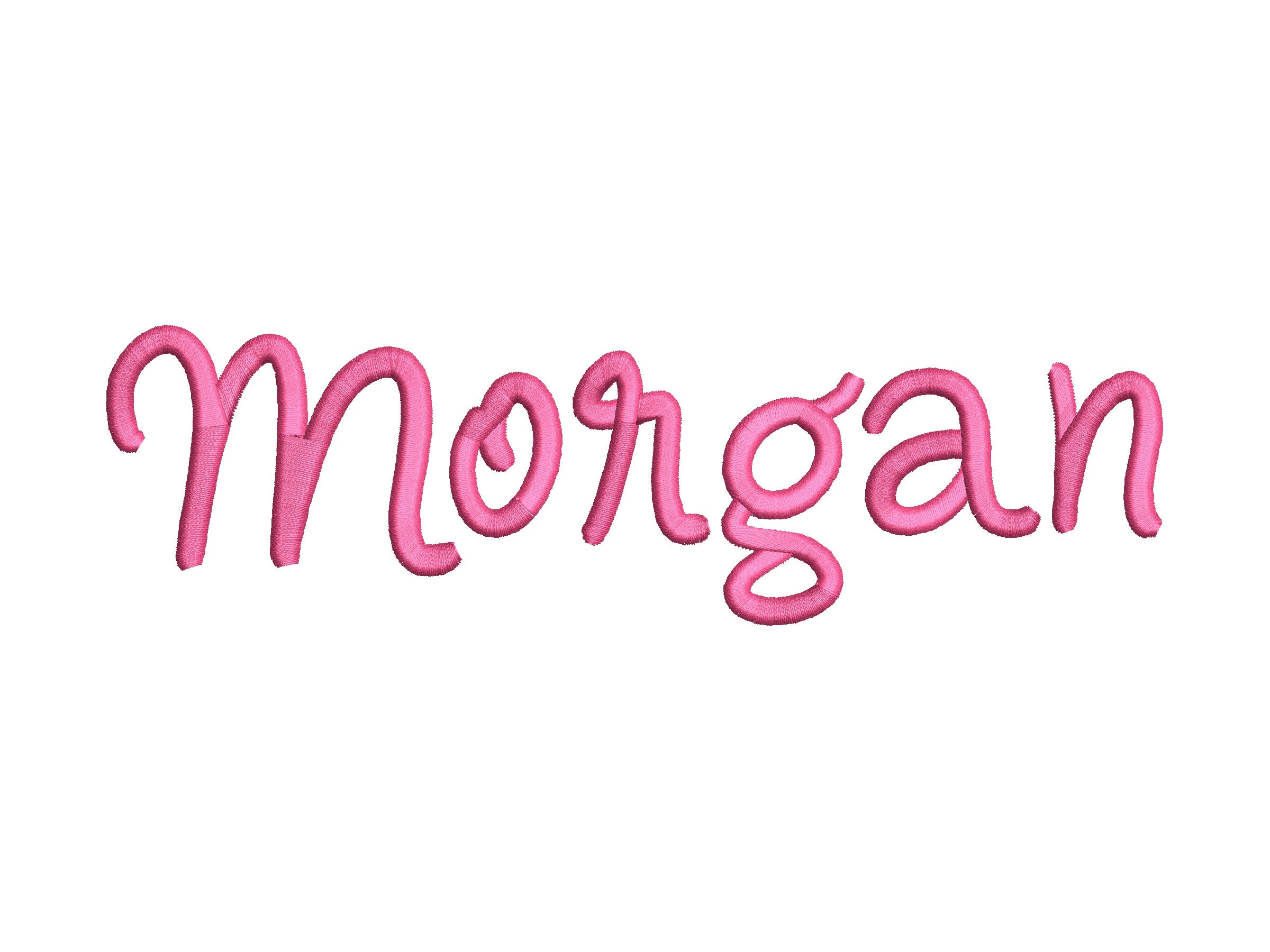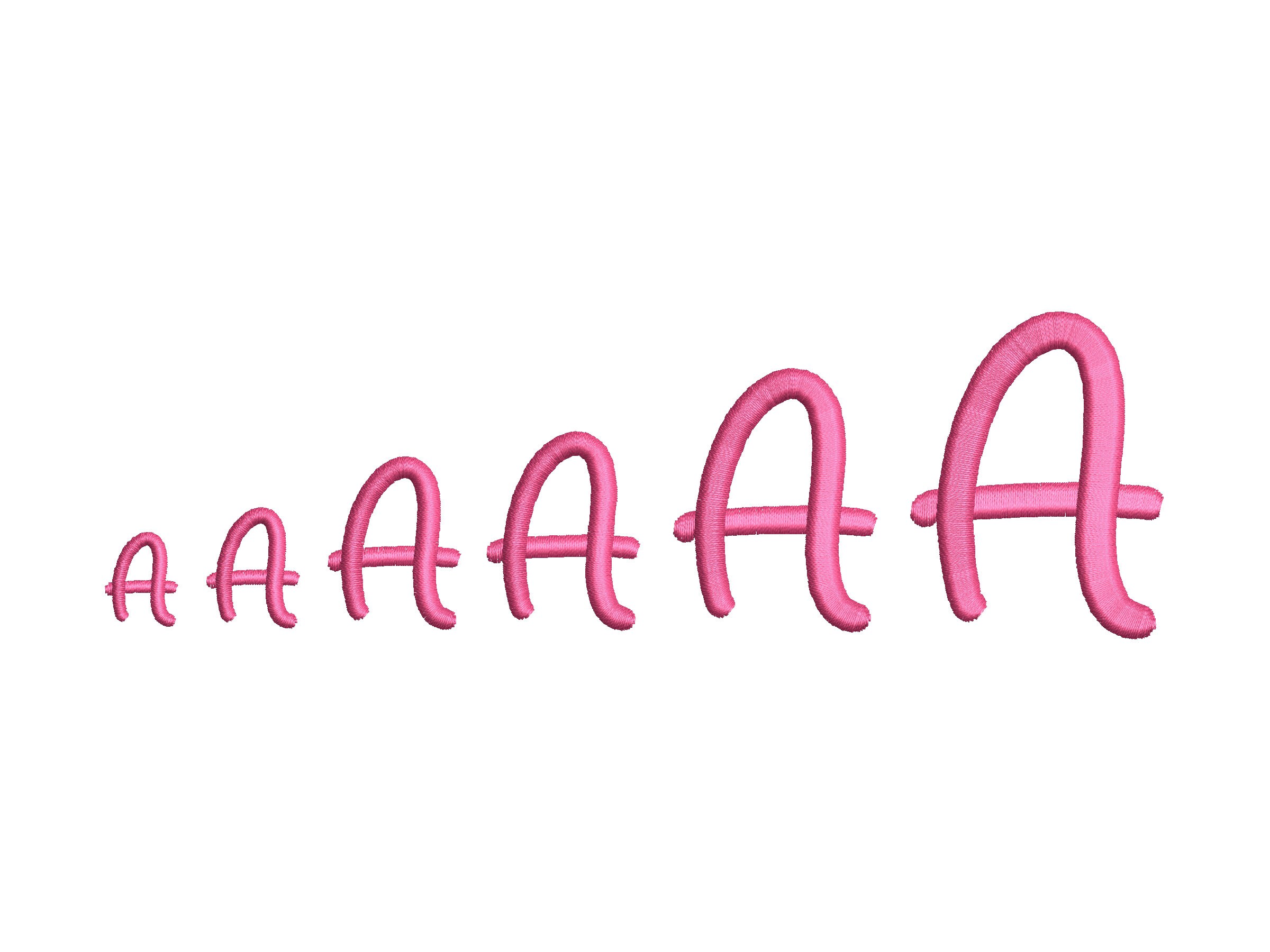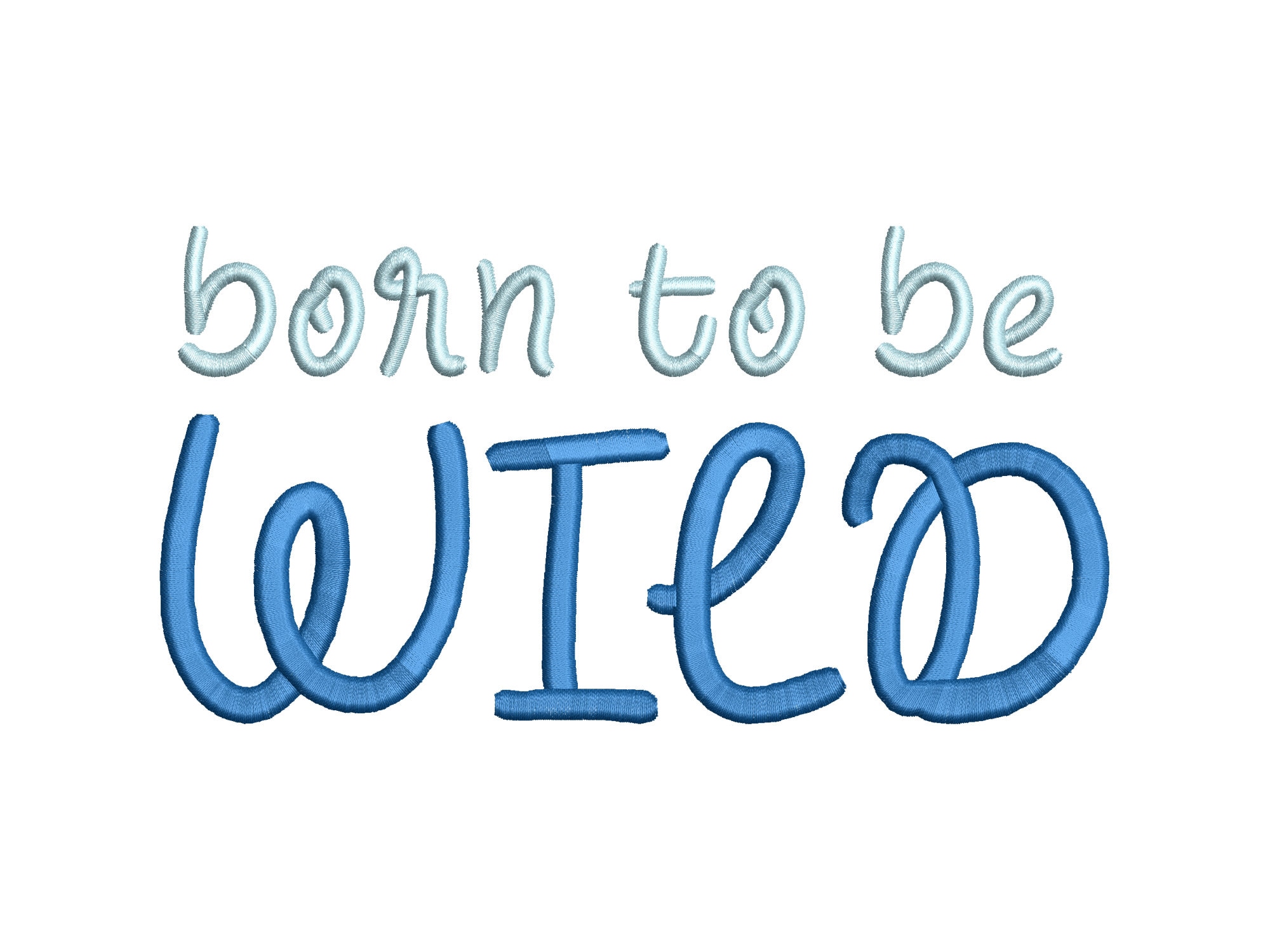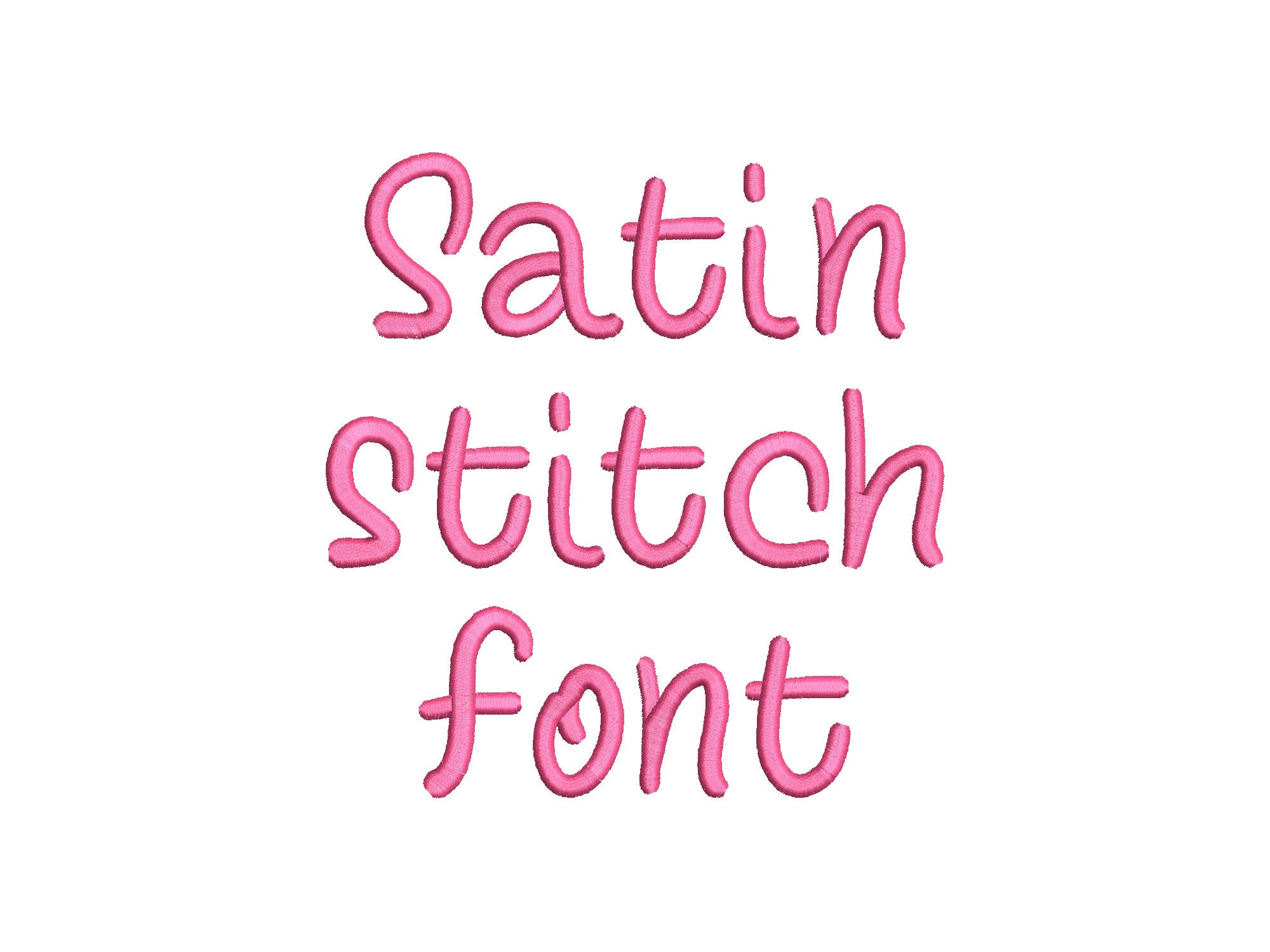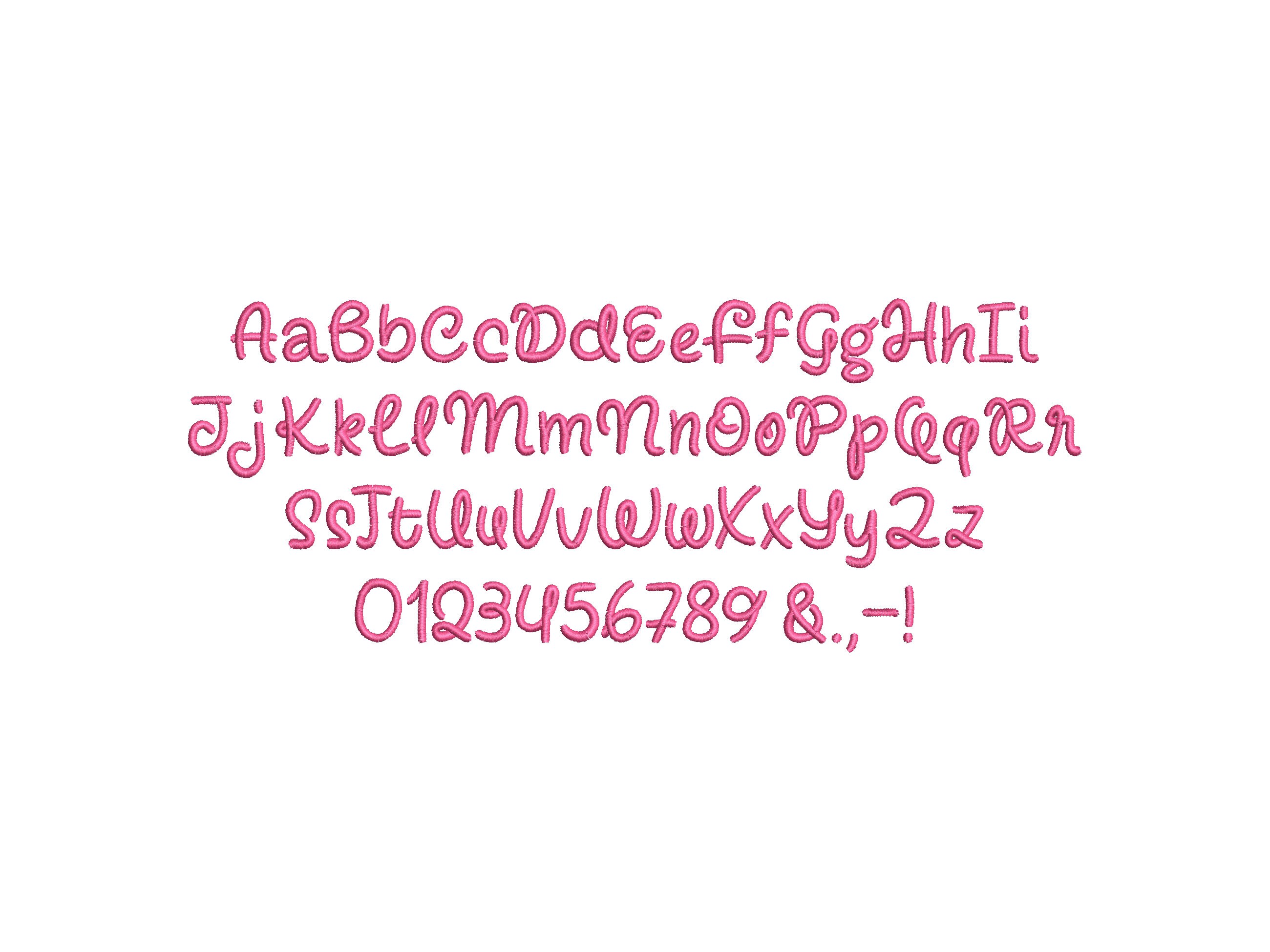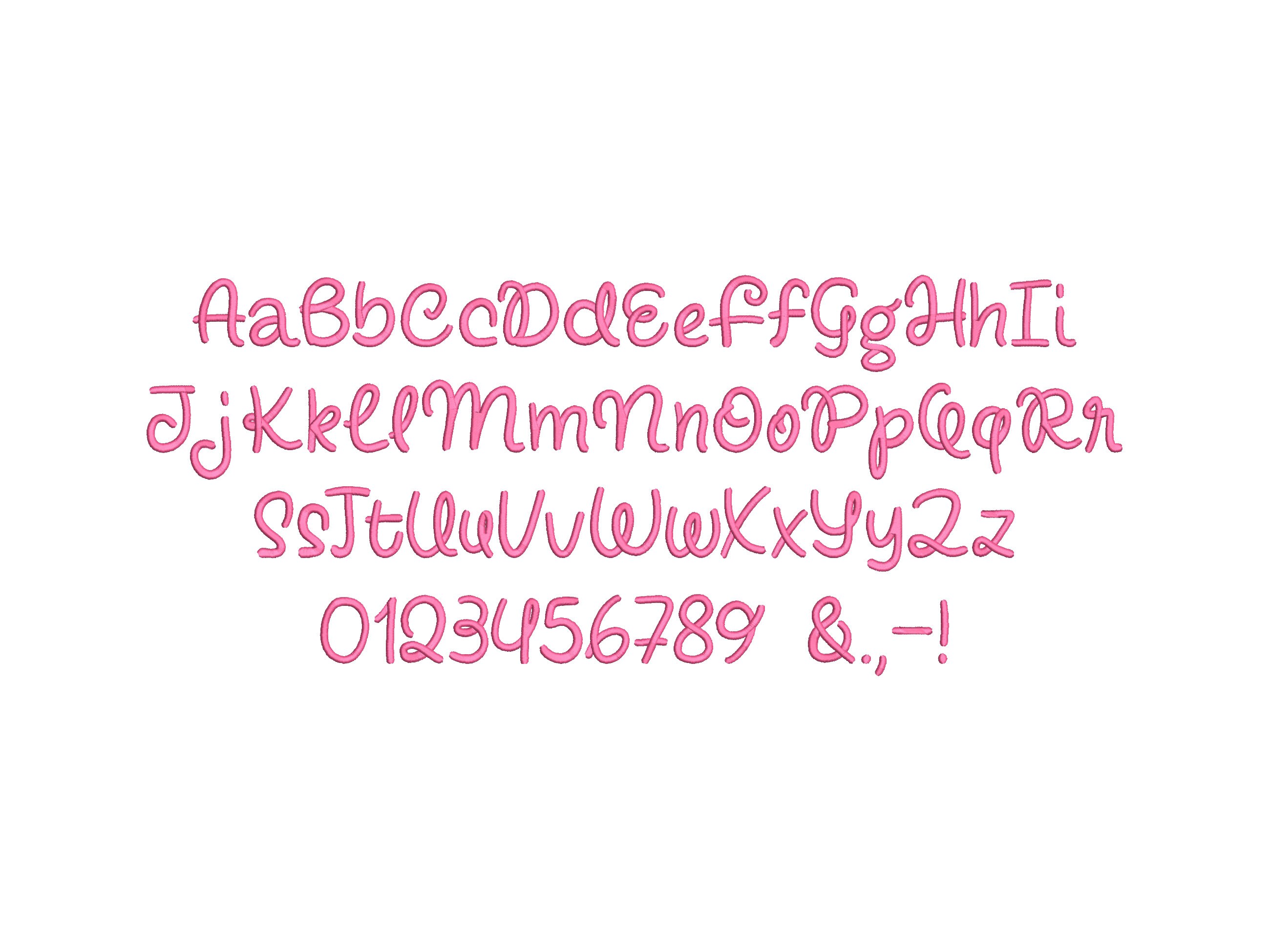
Satin stitch Font handwritten alphabet letters and numbers machine embroidery designs in mini sizes from 0.6 up to 2.2 inches kids monogram
Whole alphabet uppercase and lowercase letters Aa-Zz, numbers 0-9, and punctuation.